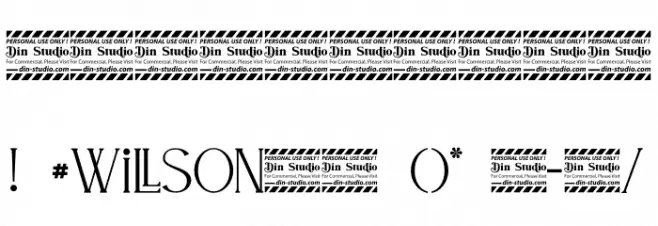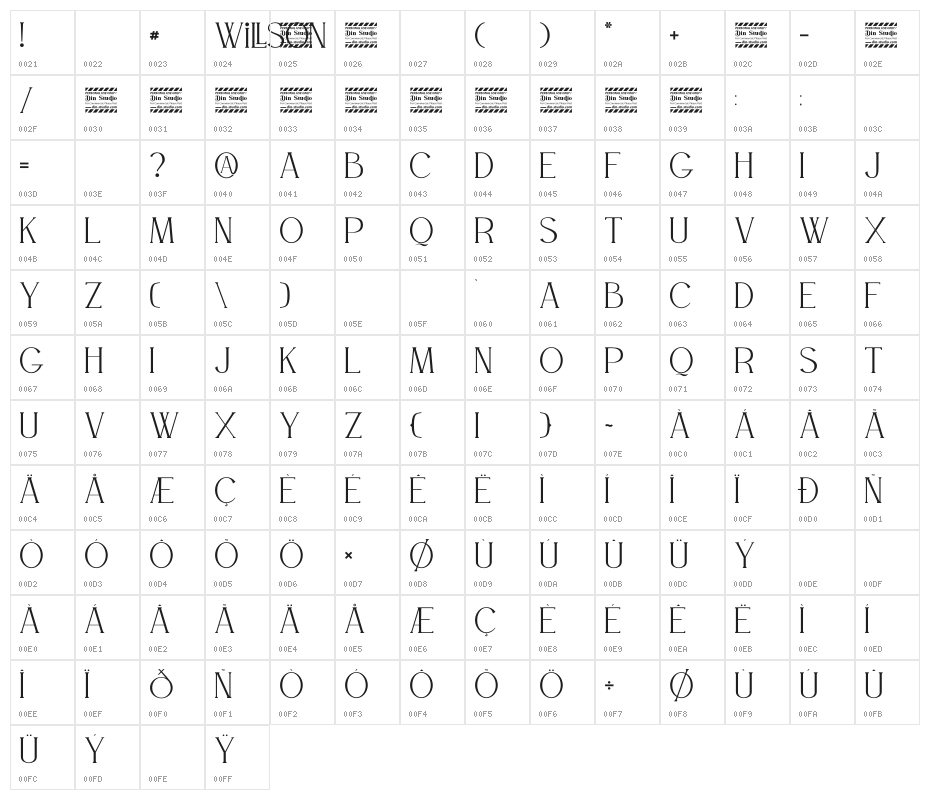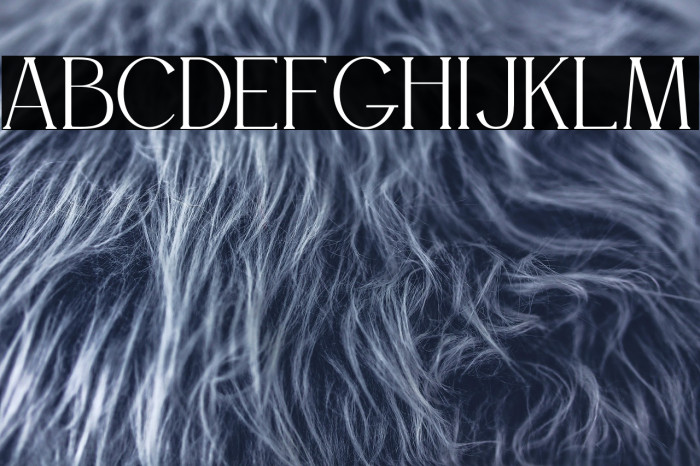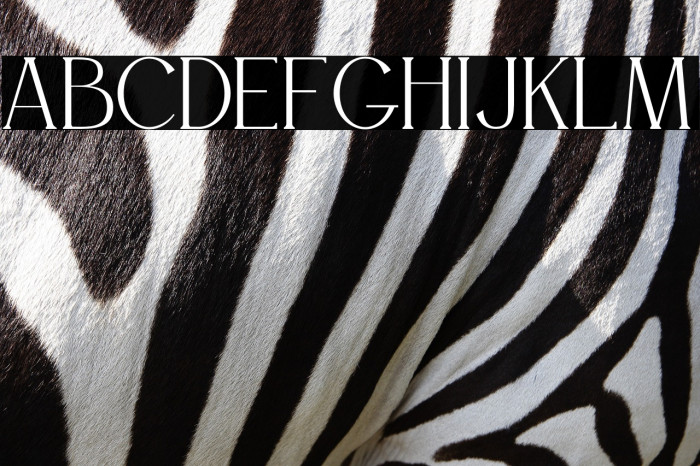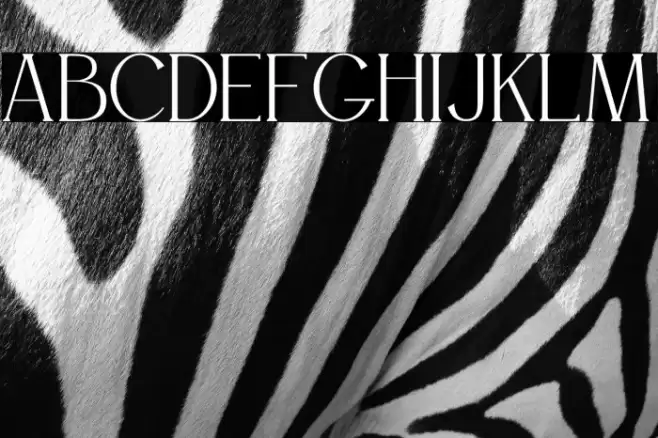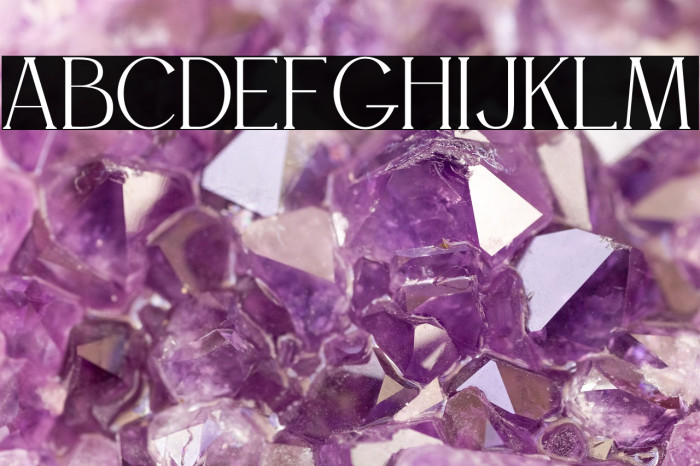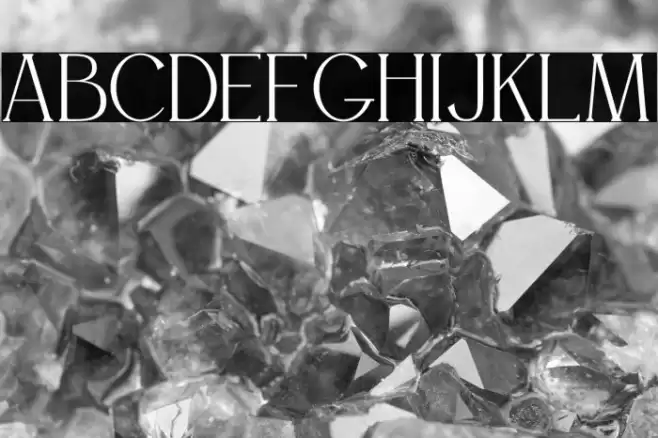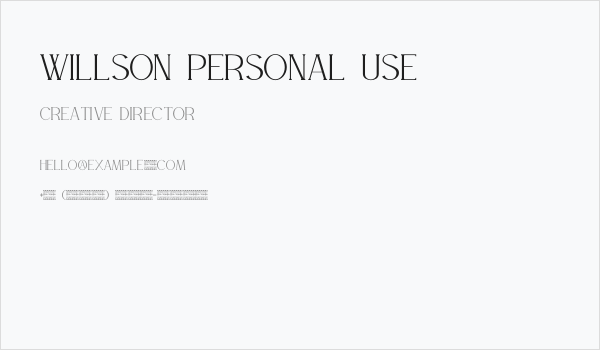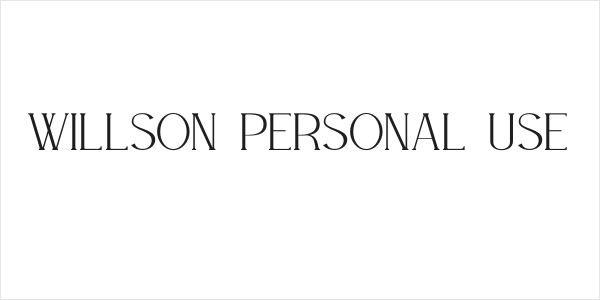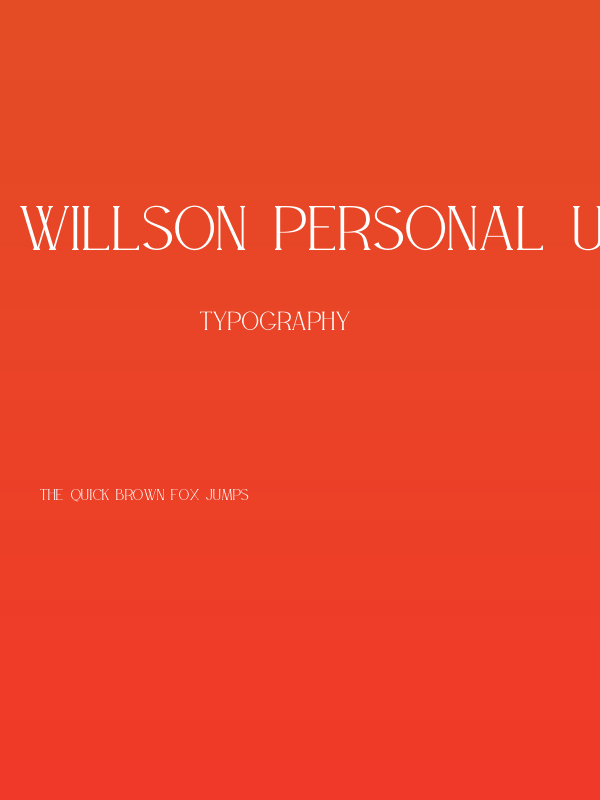
WILLSON Personal Use Font
WILLSON Personal Use Description
This font exhibits a classic and elegant style, characterized by its tall, slender letterforms with high contrast between thick and thin strokes. The serifs are sharp and pronounced, adding a touch of sophistication. The uppercase letters are particularly elongated, giving a sense of grandeur and formality. The lowercase letters maintain a consistent style, complementing the uppercase with their refined curves. The numerals are designed to match the overall aesthetic, ensuring a cohesive look across all characters. Special characters are included, maintaining the same elegant design. This font is suitable for projects that require a touch of elegance and formality, such as invitations, branding, and editorial design.
| Proposed Projects | Ideal for wedding invitations, luxury branding, editorial layouts, and formal event programs. |